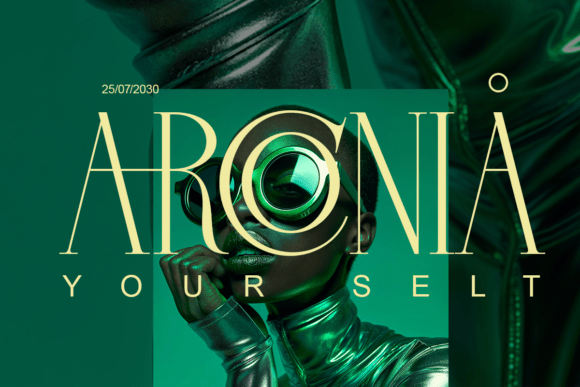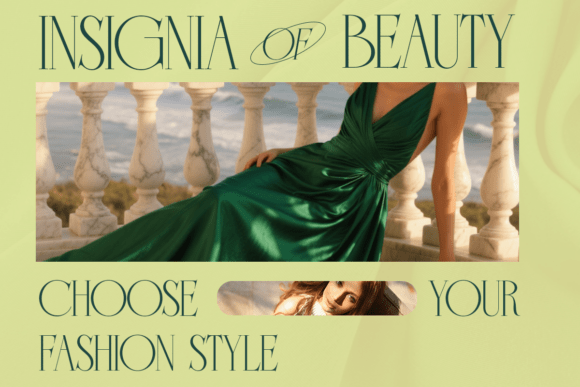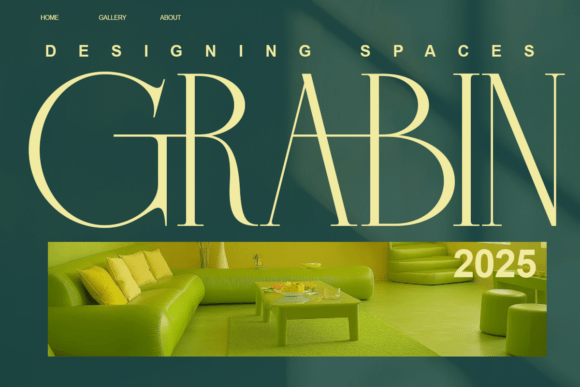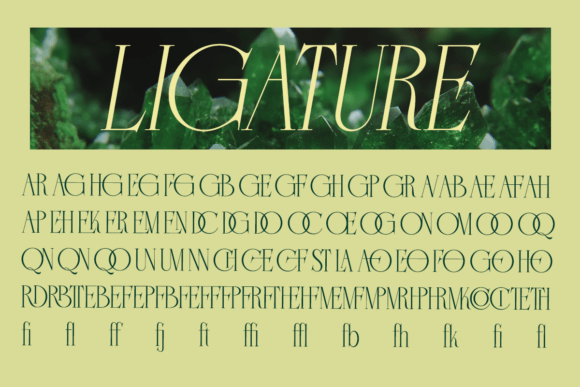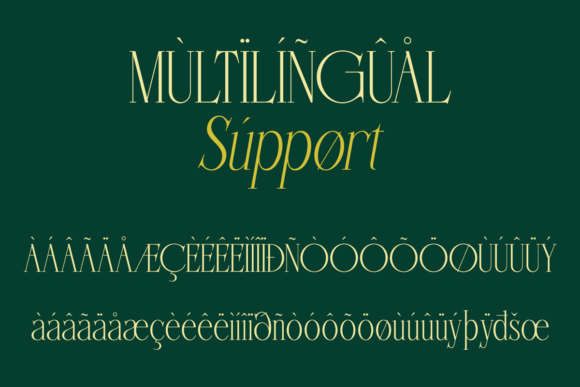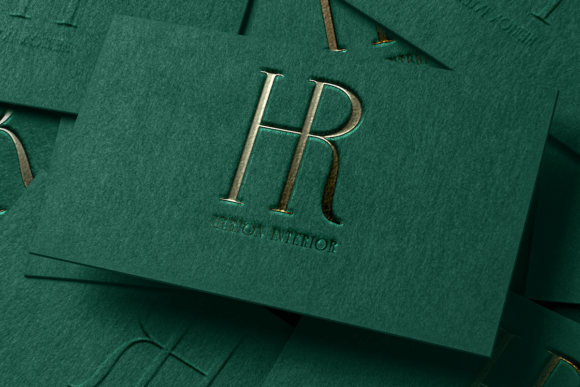
Introduction to Gremont Arquela Font
Gremont Arquela Font is a modern luxury serif designed with elegant contrast and refined letterforms.
This typeface is perfect for branding, editorial layouts, fashion logos, and packaging design With stylish ligatures and elegant structure, Gremont Arquela delivers premium typography suitable for high-end design.
Key Features of Gremont Arquela Font